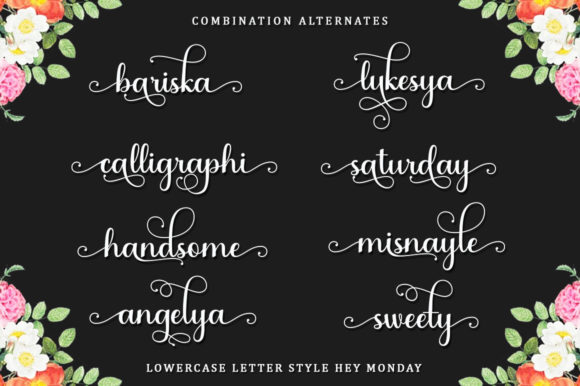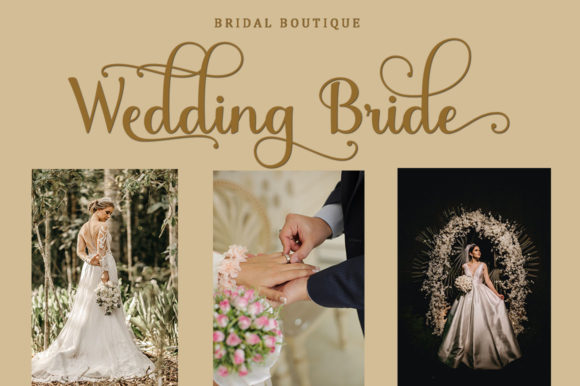
Hey Monday Font
db-ku.com - Script & Handwritten -- Hey Monday is a very cute, sleek and unique handwritten font. Expertly designed to be a true favourite, this font has the potential to take any of your creative ideas to the highest level!